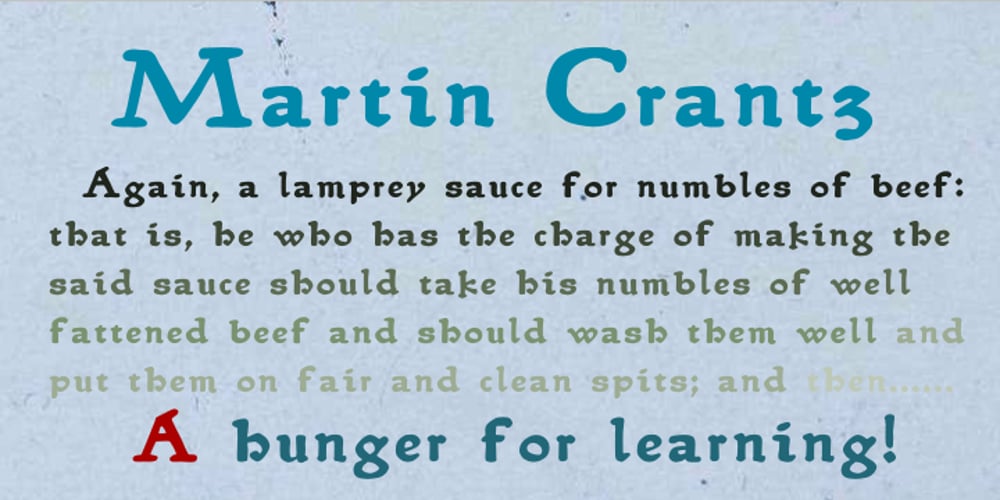
Martin Crantz Font Family was designed by Shane Brandes and published by Proportional Lime. Martin Crantz contains 2 styles and family package options. Martin Crantz (or sometimes Krantz) of the three, including Ulrich Gering and Michael Friburger, that set up a press at the Sorbonne in 1470 was likely the fellow who had the technical know how how to cast the type itself, hence the name of this new face that is based on his work. This font has been expanded to meet the demands of modern day use but it also contains a number of specialized glyphs that allow for the recreation of text in the manner of his day with such characters as the -rum abbreviation and other handy Renaissance oddities. Since this face was designed prior to 1501 there is no italic variant in keeping with the spirit of historical accuracy.